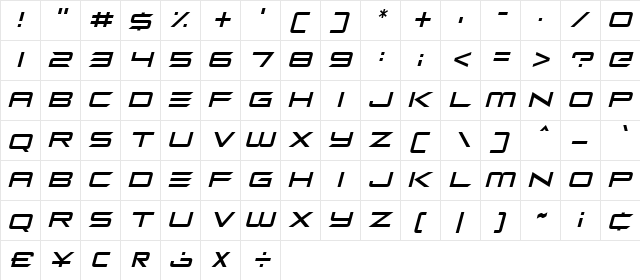
Zen Os Italic
| Designer | Darrell Flood |
Design Context for Zen Os Typeface
Zen Os offers clean, dependable letterforms without strong stylistic allegiance, making it a practical choice for designers who need flexibility. Its italic angle brings a sense of urgency and motion to the letterforms.
Pro Tip: Use Zen Os for emphasis, pull quotes, and subheadings where its slanted energy can add rhythm to the layout.